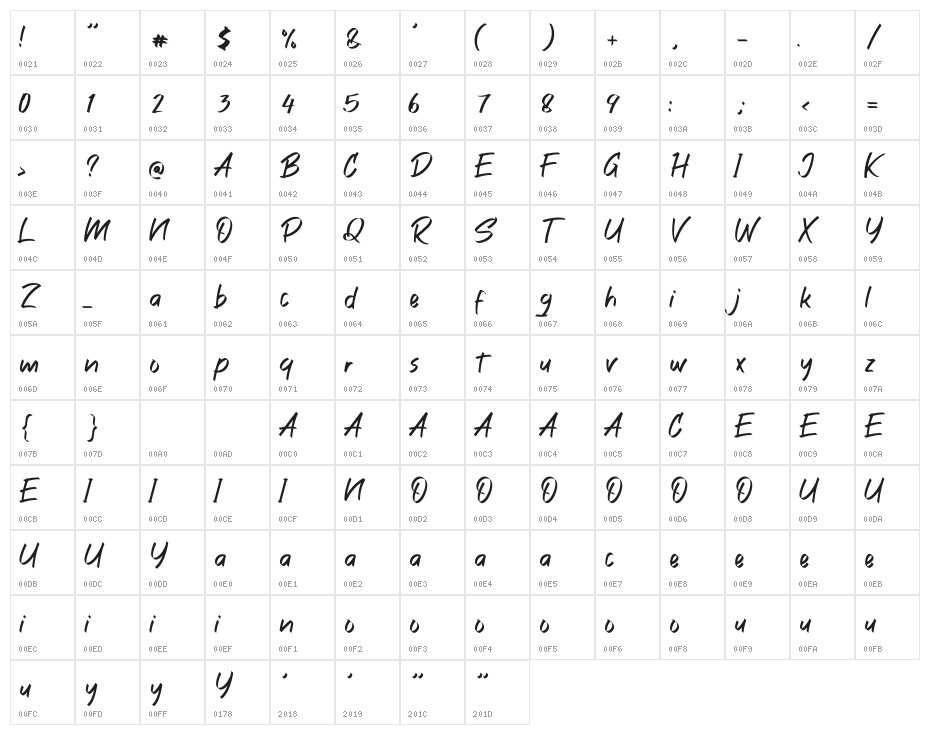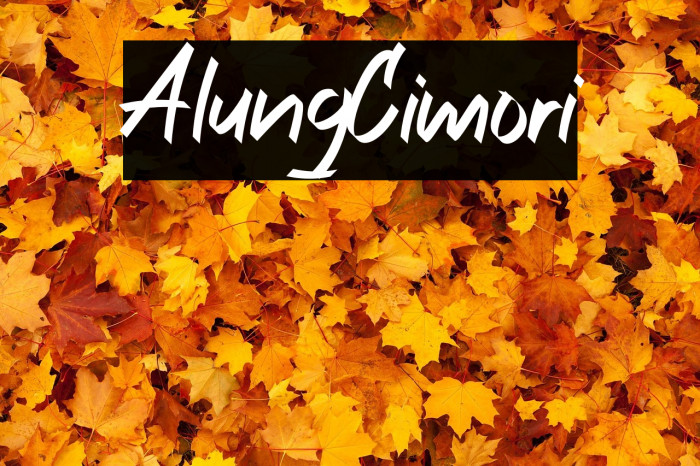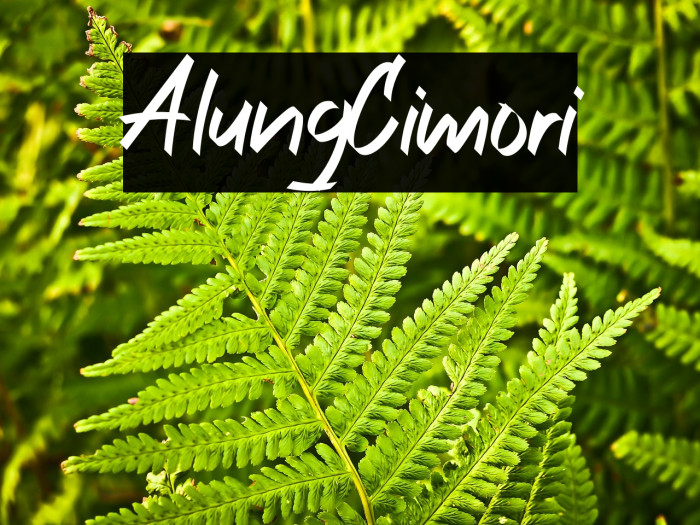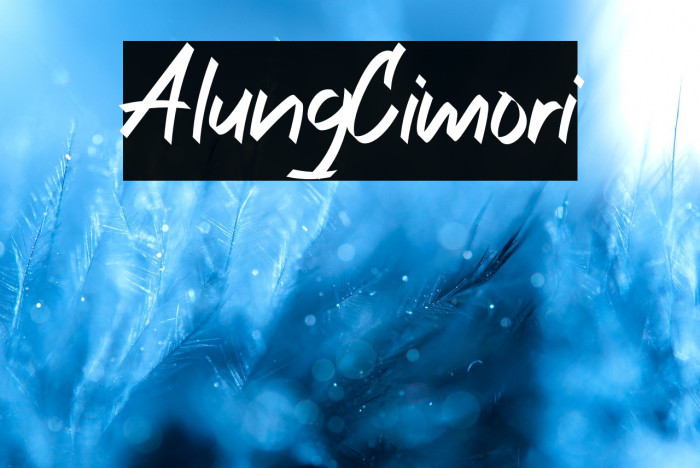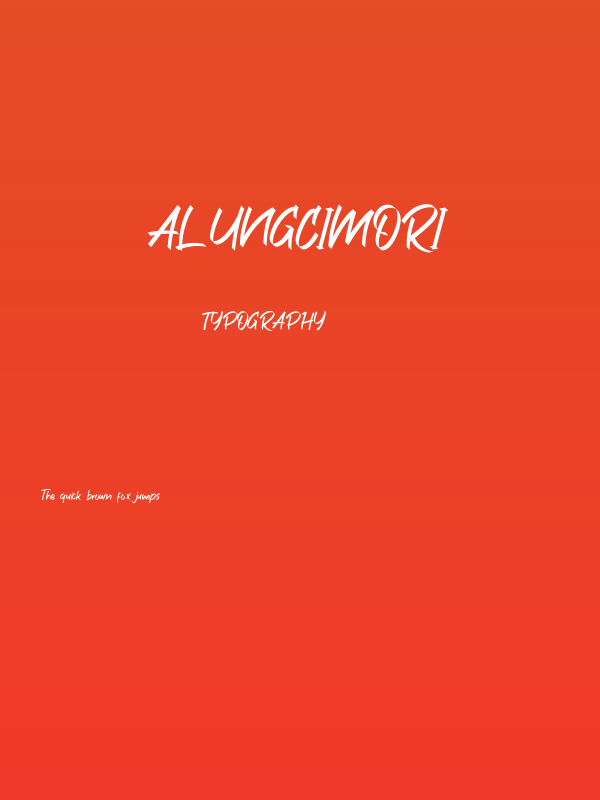
AlungCimori Font
AlungCimori Description
This font features a dynamic and energetic script style, characterized by its bold and flowing strokes. The uppercase letters are slightly slanted, giving a sense of motion and fluidity, while the lowercase letters maintain a consistent rhythm. The numerals and special characters are crafted with the same lively flair, ensuring a cohesive look across all text. The overall appearance is both modern and expressive, making it suitable for projects that require a personal touch.
| Proposed Projects | Ideal for branding, invitations, posters, and any design that requires a personal and dynamic touch. |